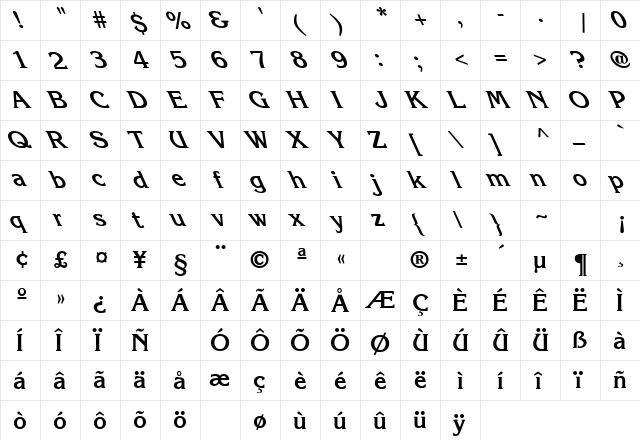
Korinna-BoldLeftie Regular
Design Context for Korinna-BoldLeftie Typeface
Korinna-BoldLeftie is a composed and adaptable typeface that performs quietly and consistently across a wide range of design contexts. The heavy weight commands attention and anchors typographic hierarchies.
Pro Tip: Pair Korinna-BoldLeftie with a font of contrasting weight or personality to build a more expressive typographic hierarchy.